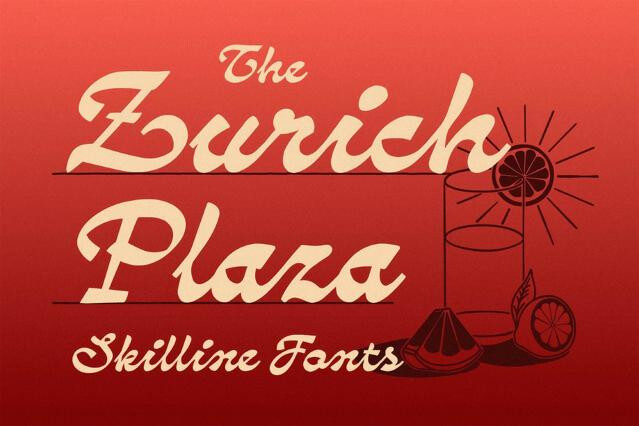
Calligraphy fonts descend from the disciplined art of the pen. Itβs the tradition of the broad-nib and pointed-pen, where stroke contrast, rhythm, and sweeping curves are everything. The selection spans classic copperplate, modern brush calligraphy, and expressive lettering that carries the hand of a master scribe. Free calligraphy fonts sit next to premium families, and you can test a script on a real layout first.
Best calligraphy fonts for invitations, certificates, and the art of the pen
These fonts translate the discipline of the pen and brush into type: high stroke contrast, graceful entry and exit strokes, generous loops, and the rhythm that comes from real penmanship. Traditional calligraphy took years of practice: scribes cut their own quills, and the copperplate masters of 18th-century England sold engraved copybooks so clerks could learn their smooth curves. A good pen-based typeface carries that refinement into a family you can type with.
Our collection spans formal copperplate, modern brush scripts, and decorative display fonts. Weβve prioritized typefaces with thoughtful ligatures and alternates, because beautiful calligraphy lives in the connections between glyphs as much as the glyphs themselves. That makes the set versatile enough for smart wedding stationery and for creative projects in graphic design.
Using calligraphy fonts for wedding, branding, and stylish lettering
Script fonts are the typographic equivalent of a handwritten note in a world of printed mail. They signal care, time, and intention the instant they appear. That perceived effort explains why they belong to moments meant to feel special, refined, or ceremonial β where a company or host wants to communicate that the occasion mattered enough to do by hand. For wedding invitations, an elegant script with flowing lines adds a human touch; for informal notes, pick a looser writing style or a simple script typeface.
- Wedding and event invitations, save-the-dates, and event suites.
- Greeting cards, festive posters, and holiday boxes.
- Logo, header, and heading type for luxury branding and feminine beauty labels.
- Luxury packaging for beauty, spirits, and fashion.
- Certificates, diplomas, and formal documents.
- Restaurant menus and boutique hospitality branding.
- Quote art, prints, and hand-lettered headlines.
Classic calligraphy and modern calligraphy font styles
Each calligraphic tradition carries its own century and its own degree of formality, and that history does work in a design long before anyone reads the text. A pointed-pen hand whispers old-world ceremony; a loaded brush feels like right now. Choosing among them is about which era and register the occasion should evoke. That choice matters in typography: a retro poster, a wedding menu, and a beauty label each need a different kind of elegance in the letterform.
- Formal scripts β the refined copperplate and Spencerian hands of 18th- and 19th-century engravers and writing masters, drawn for ceremony and still read as the most dressed-up register.
- Modern script and brush β the energetic, slightly imperfect strokes of the contemporary hand-lettering revival, looser and more personal.
- Expressive script display β descended from the show-off penmanship masters once used to prove their skill, with extravagant swashes built for monograms and single-word statements.
- Handwriting and casual lettering β the warmest, least formal end, trading ceremony for the friendly intimacy of a note written by hand.
The four main types of calligraphy and the calligraphy font for each
- Italic: the slanted, broad-nib hand of Renaissance Italy, still the most readable pen script style for menus and certificates.
- Gothic or blackletter: dense medieval glyphs with sharp diamond strokes, great for mastheads and labels.
- Copperplate: the pointed-pen script of English writing masters and the classic wedding style, with fine hairlines and swashes.
- Uncial: round, open capitals from early medieval books, often used for Celtic and fantasy themes.
Modern brush lettering sits next to these four as a stylish calligraphy style of its own, loose and personal, and many script font families in our collection blend it with copperplate rhythm.
All calligraphy is script, but calligraphy specifically reproduces pen-based lettering art, i.e., the deliberate thick-thin contrast of a broad nib or pointed pen, with controlled rhythm and flair. Itβs the most traditional, craft-rooted corner of the script family.
A broad-nib pen creates contrast based on stroke direction (think blackletter and italic hands); a pointed pen creates contrast through pressure (think copperplate and Spencerian).
Real calligraphy varies entry strokes, connections, and flourishes constantly, and OpenType contextual alternates and swash glyphs recreate that variety automatically. Without these features turned on, the script looks mechanical β we note which fonts include them.
Calligraphy fonts imitate a broad-nib or pointed pen, with deliberate thick-thin contrast and flowing strokes. Cursive fonts imitate everyday handwriting with joined letters, so they are usually more even and casual. Many fonts sit between the two, which is why the categories overlap.
High stroke contrast, tall ascenders, and decorative capitals make letterforms less distinct, especially at small sizes or in all caps. Set calligraphy large, keep the words short, and pair it with a simple serif or sans for longer text.